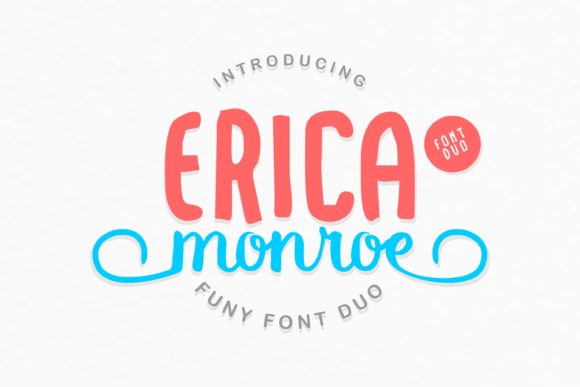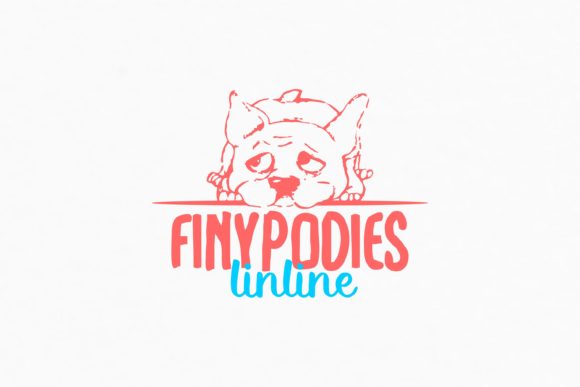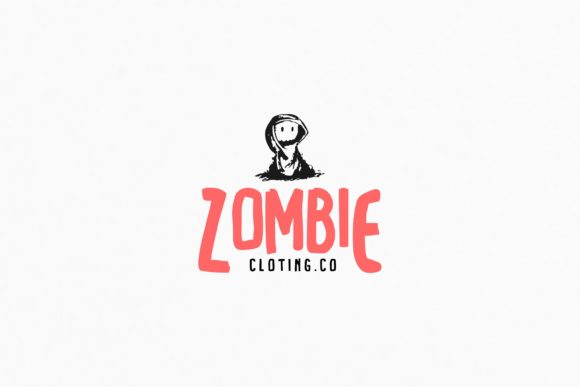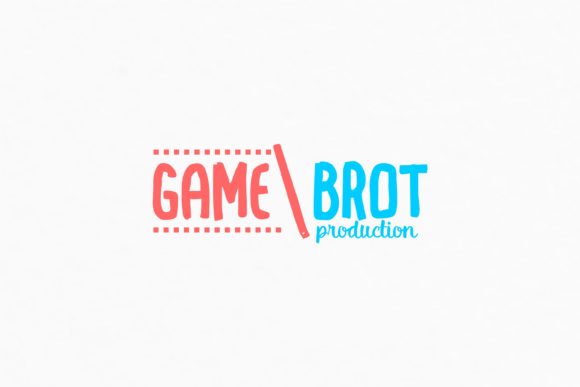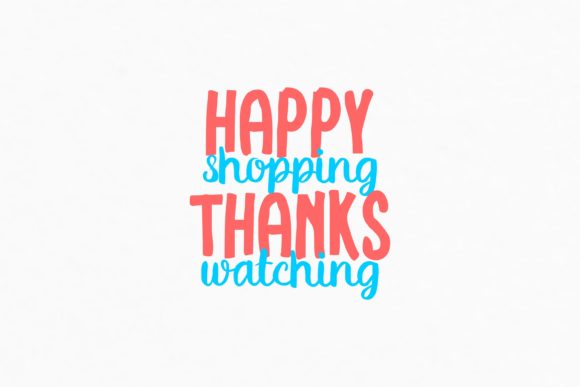
Erica Monroe Duo Font
About Erica Monroe Duo Font
The Erica Monroe is an amazing font duo. It includes a striking, and elegant version. Both styles can be combined together perfectly.
It’s perfect for making quotes, love letters, shirts, posters, logos and more!